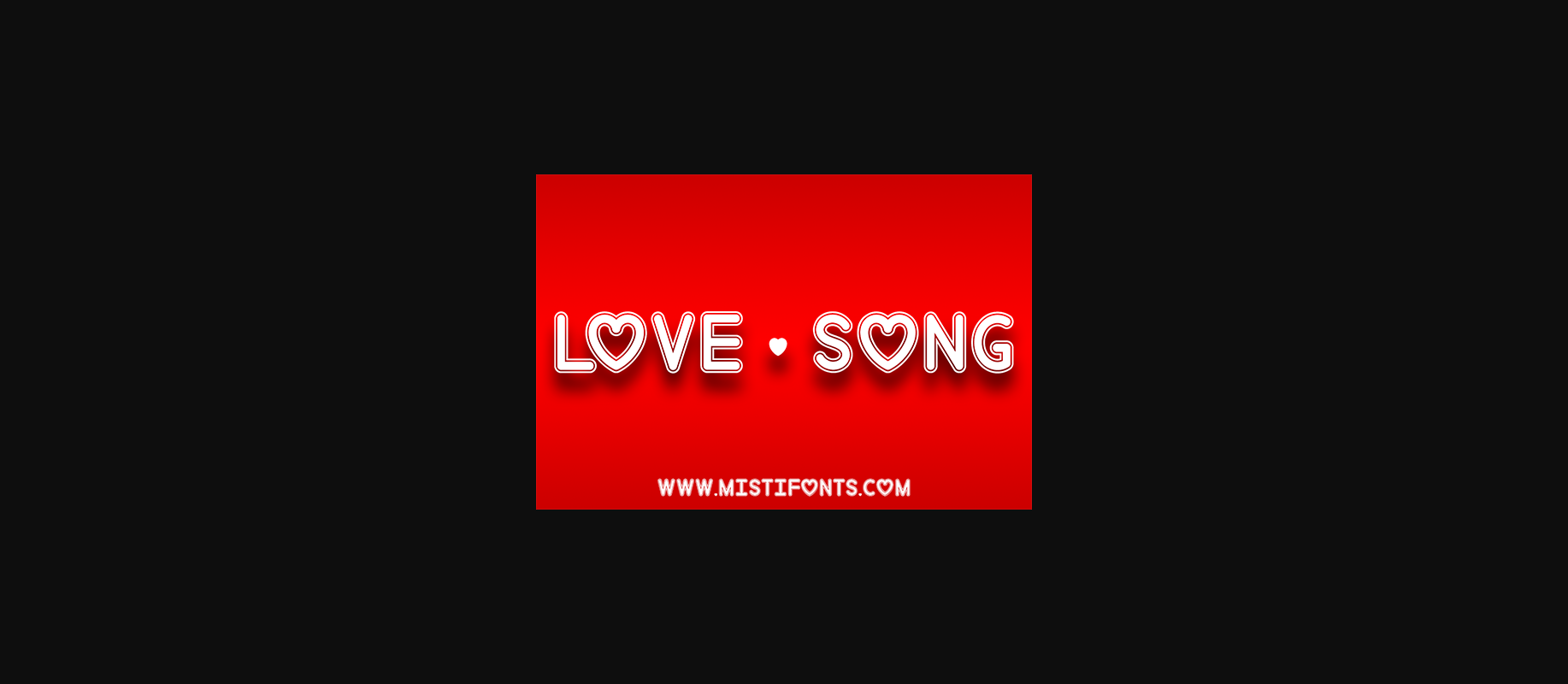
HomeDecorative FontsLove Song Font Decorative Fonts Love Song Font FacebookXPinterestWhatsApp 1 of 1 About Love Song Font Love Song is an all-caps font with lots of love and is perfect for your design and craft projects! DOWNLOAD NOW People also explored Subline Font Vita Valentina Font Calliston Font To You Font Lloisanne Font Diveil Script Font Block Space Font Mister Paijo Font Dayling Script Font 278 0 TagsLove Song Font Previous articleOrientypes FontNext articleFingerspelling Font LEAVE A REPLY Cancel reply Comment: Please enter your comment! Name:* Please enter your name here Email:* You have entered an incorrect email address! Please enter your email address here Website: Save my name, email, and website in this browser for the next time I comment. Personal Use Free Midnight Show Personal Use Free Read more about this font Batik Classic Personal Use Free Read more about this font Lanilla Personal Use Free Read more about this font New System Personal Use Free Read more about this font BLOG Modern Sans-Serif Fonts That Brands Love in 2025 In 2025, modern sans-serif fonts remain a top choice for brands looking to project clarity, professionalism, and... Top 10 Handwritten Fonts That Elevate Your Designs Best Fonts for YouTube Videos: Make Your Thumbnails Stand Out Top 7 Google Fonts Alternatives for Faster and Privacy-Friendly Web Design (2025)